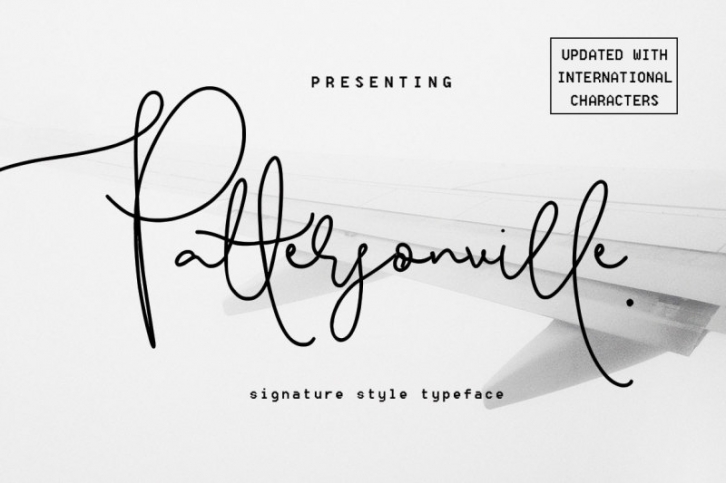
Pattersonville Script Font Download
UPDATE - Now includes International Characters, more unique ligatures for double letters, and improved Uppercase G,J, L, Q,
Pattersonville is a signature style handwritten script with so much unique character, making it perfect for every different design style out there.
It includes ligatures for double letters such as dd, ee, ff ll, oo, rr, ss, tt - giving it a genuine hand written look.